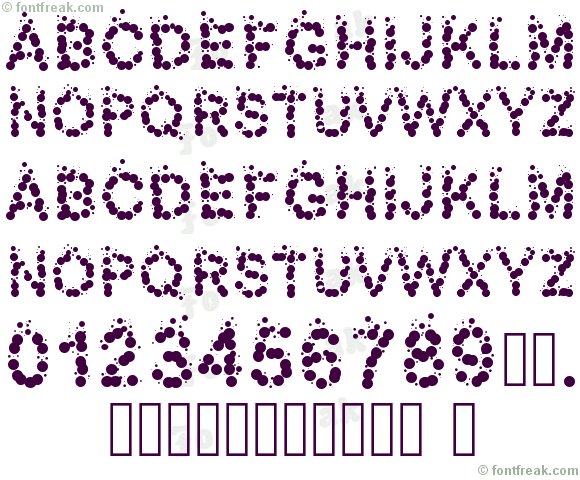
PWBubbles
PWBubbles, designed by Peax Webdesign, is a captivating display font that falls into the decorative category. This unique typeface features a playful and bubbly aesthetic, characterized by its rounded forms that evoke a sense of fun and lightheartedness. The stroke weight is consistent, giving the font a harmonious look, while the spacing between the letters is generous, enhancing readability and visual appeal. The decorative elements are prominent, with each character resembling whimsical bubbles, making it perfect for designs that aim to capture attention.
This font shines in a variety of creative applications. Wedding invitations can benefit from its charming and inviting nature, adding a friendly touch to the stationery. For children's book covers, PWBubbles brings an element of playfulness that resonates well with young readers and their parents. Additionally, it works wonderfully for restaurant menus that aim to create a casual and welcoming atmosphere. Movie posters can also leverage its bold characteristics to draw viewers in, while social media graphics designed by content creators will stand out with this distinctive typeface.
In a marketplace filled with standard fonts, PWBubbles stands out due to its distinctive bubbly design, making it an ideal choice for those seeking to inject personality and creativity into their work. This font not only captures attention but also communicates a sense of joy and approachability, making it a valuable addition to any designer's toolkit.